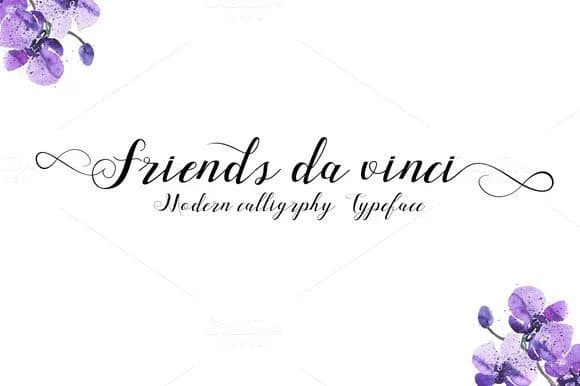
About Friends Da Vinci Font
Friends Da Vinci Font by Ijem RockArt is a flowing script typeface that brings warmth and personality to handcrafted creative work. The typeface's organic letterforms deliver authentic character that bridges formal elegance with genuine human touch, making it an ideal choice for designers seeking the aesthetic of authentic handwritten script without the time investment of manual calligraphy.
This script typeface thrives across both intimate personal projects and polished professional applications. Wedding invitation suites benefit from its graceful strokes and natural rhythm, while boutique skincare labels, artisan product packaging, and custom vinyl designs all gain distinctive personality from the font's handcrafted feel. Etsy sellers and print-on-demand merchants particularly value this typeface for creating unique product packaging and branded merchandise that demands visual distinction and authentic character in competitive markets.
Beyond its visual appeal, Friends Da Vinci Font delivers practical versatility for creators. The typeface integrates smoothly with common cutting software and digital design tools, making it accessible for crafters developing custom decals, heat-press labels, and personalized gifts that need professional quality with personal warmth. Whether you're a professional designer seeking distinctive branding solutions or a creative entrepreneur building a unique visual identity, this font strengthens work that relies on authentic personality and refined taste. Find Friends Da Vinci Font on Creative Fabrica and begin adding handcrafted elegance to your next project.
- Elegant, Flowing
Friends Da Vinci Font is a script font that shines as a display or heading face. Pair it with a clean sans-serif or serif font for body text β the contrast creates a clear hierarchy while the two styles stay balanced and easy to read.